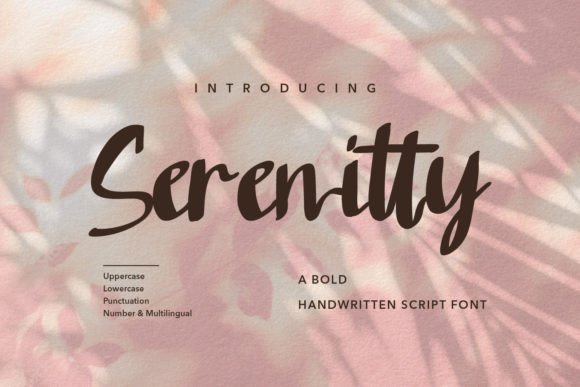
Flourish your designs with Serenitty, an exquisite script font family, meticulously crafted to bestow an aura of elegance and sophistication to your creative endeavors. Its enchanting curves and sinuous lines, reminiscent of a calligrapher's penmanship, lend themselves flawlessly to wedding invitations, business cards, and logos, leaving a lasting impression that captivates the beholder's gaze.
Serenitty is not merely a font; it's an artistic expression, a conduit for your imagination to take flight. Let your creativity soar as you harness the power of this script font, transforming ordinary text into captivating masterpieces. Its PUA encoding grants you unfettered access to a treasure trove of glyphs and swashes, empowering you to unleash your artistic vision without limits.
Immerse yourself in the allure of Serenitty, and watch as your designs blossom into breathtaking works of art. Its readability and sophisticated charm ensure that your message will be conveyed with clarity and grace, making an impact that lingers in the minds of your audience. Elevate your creations to new heights of beauty and distinction with Serenitty, the script font that embodies elegance and artistic excellence.